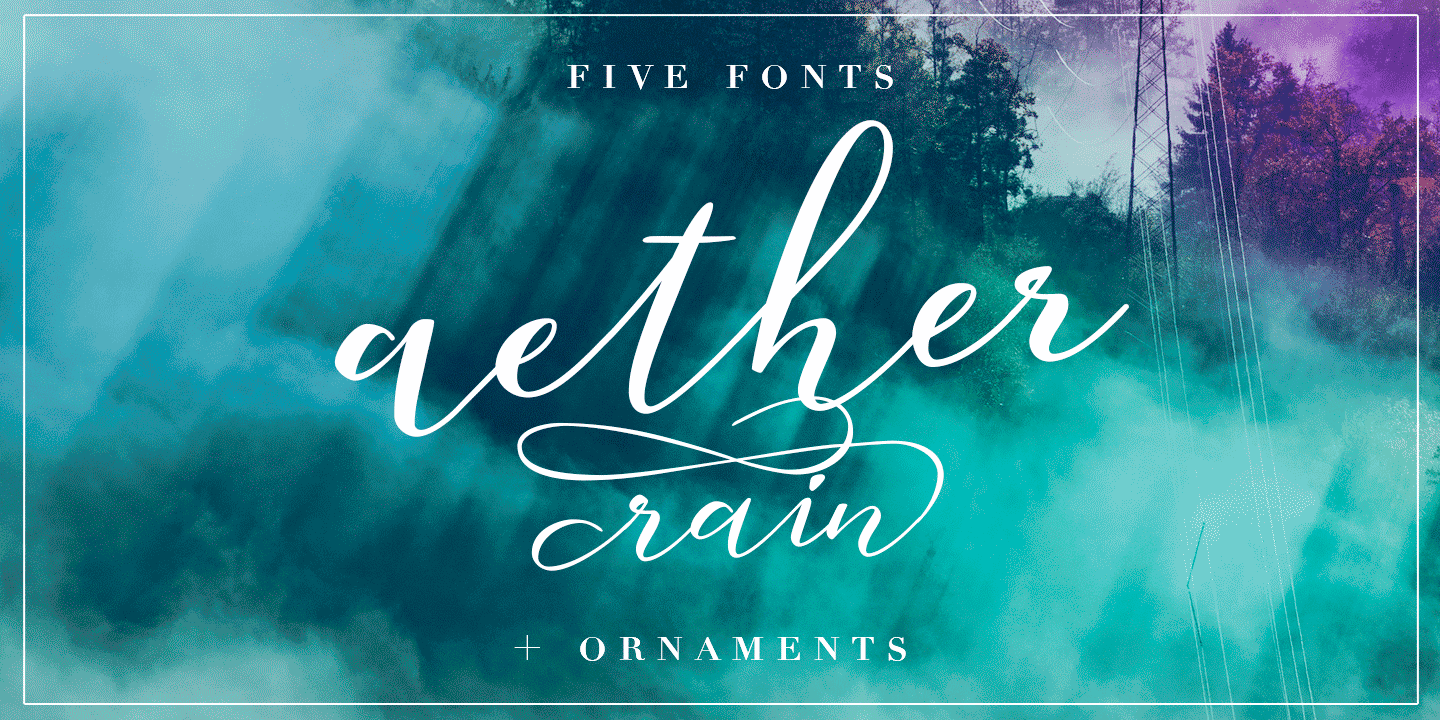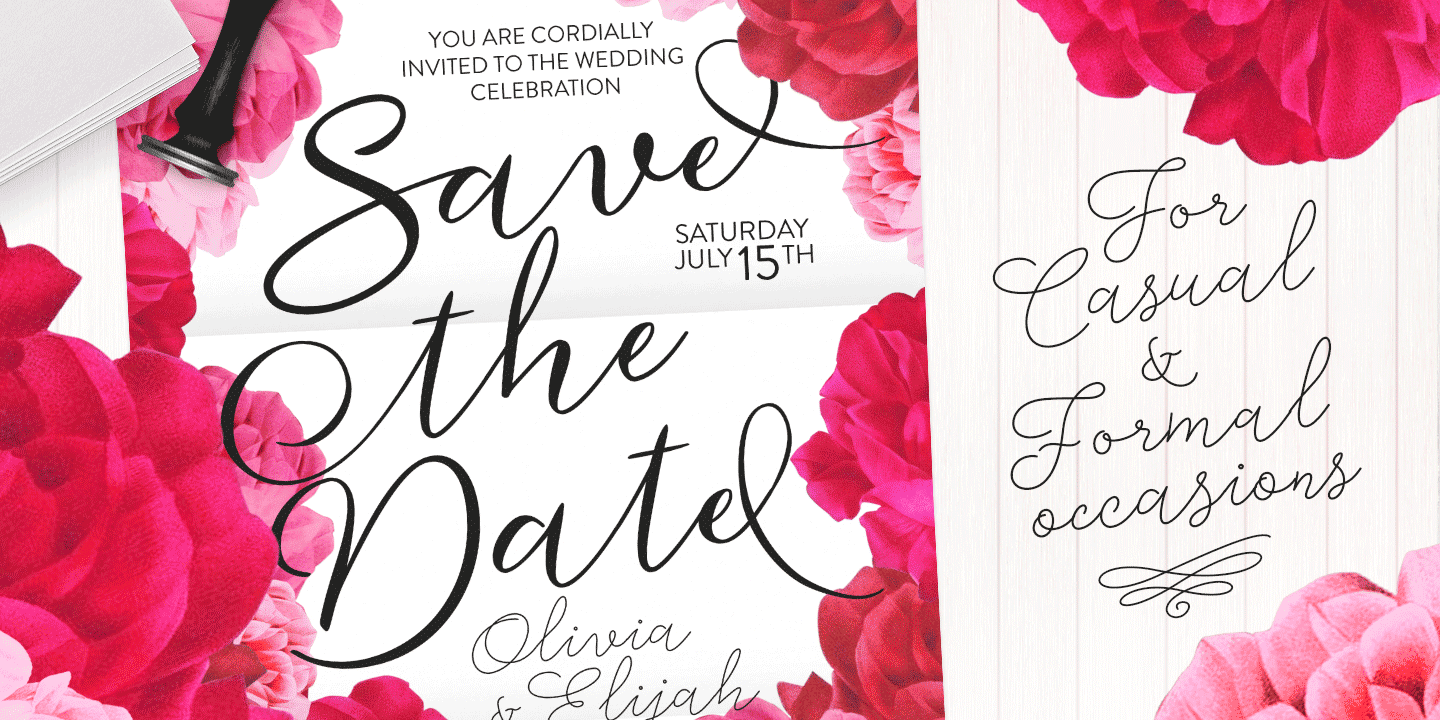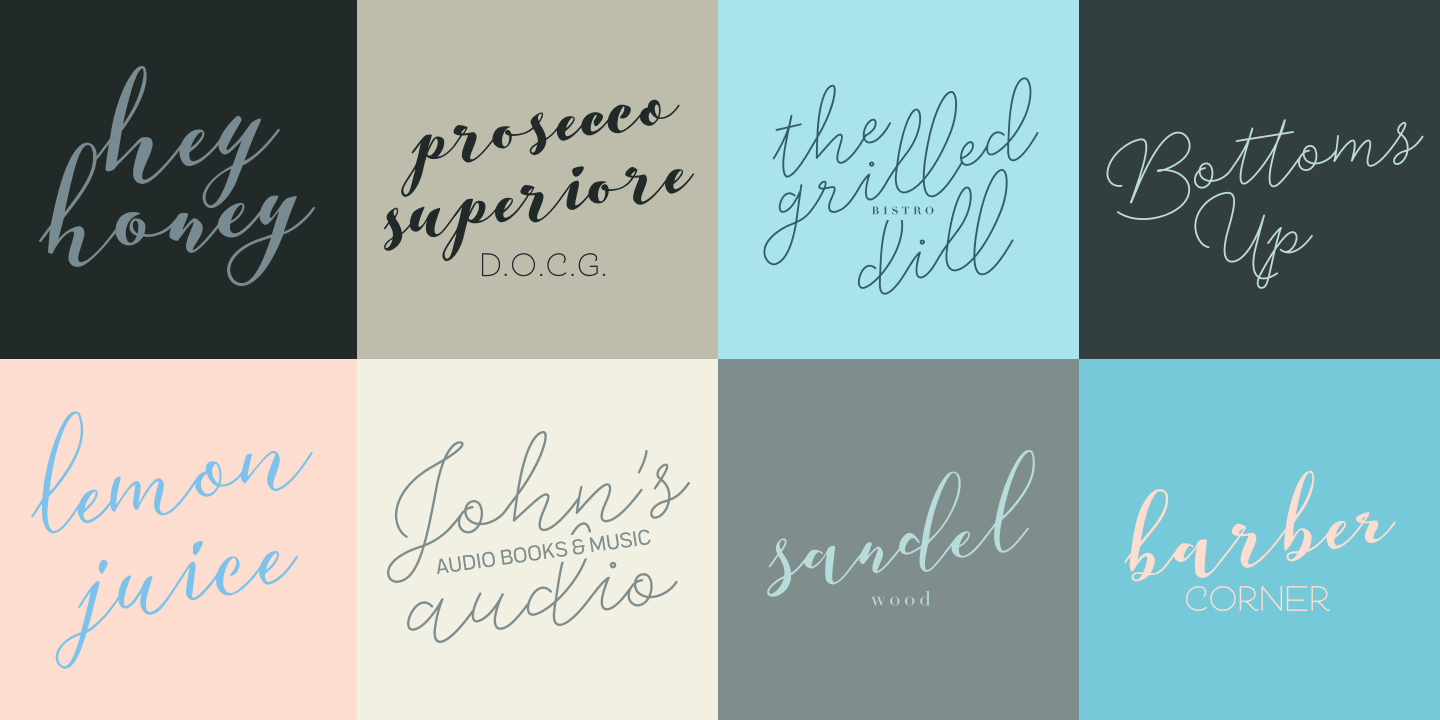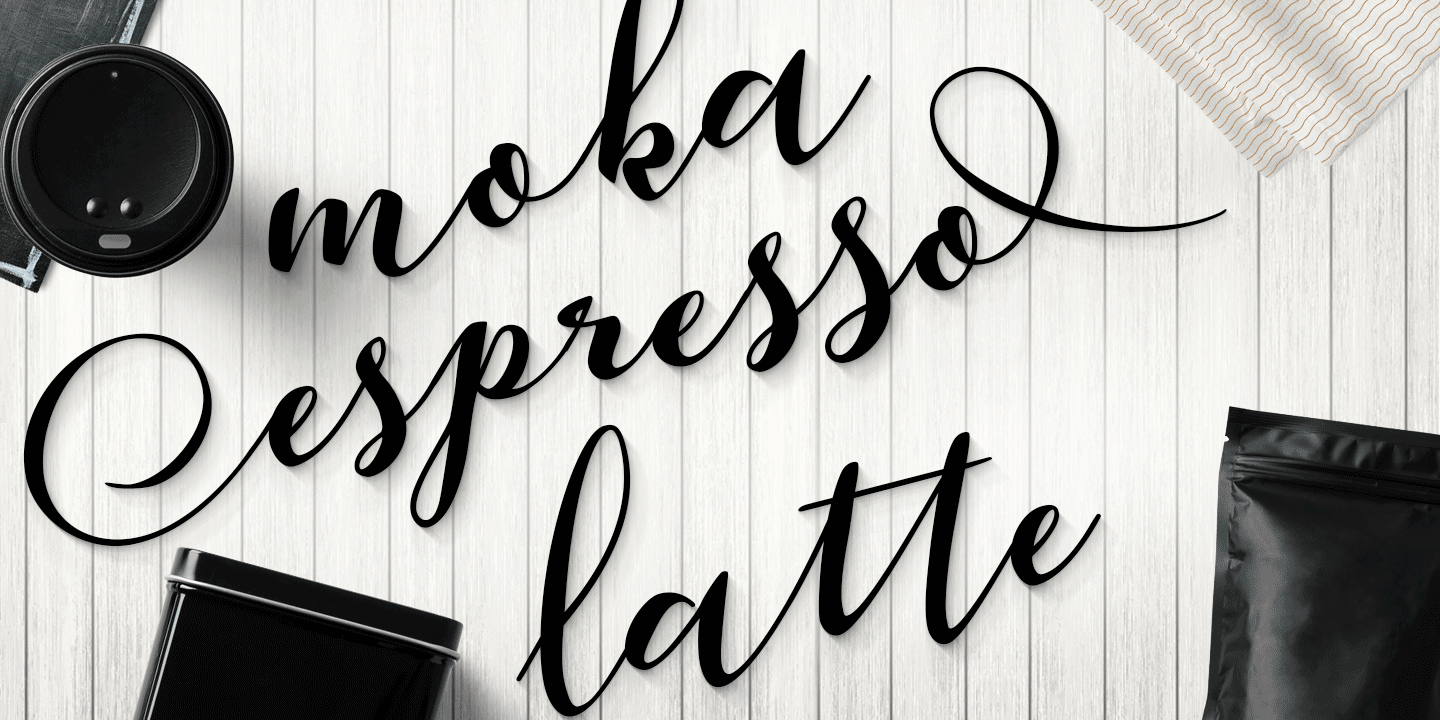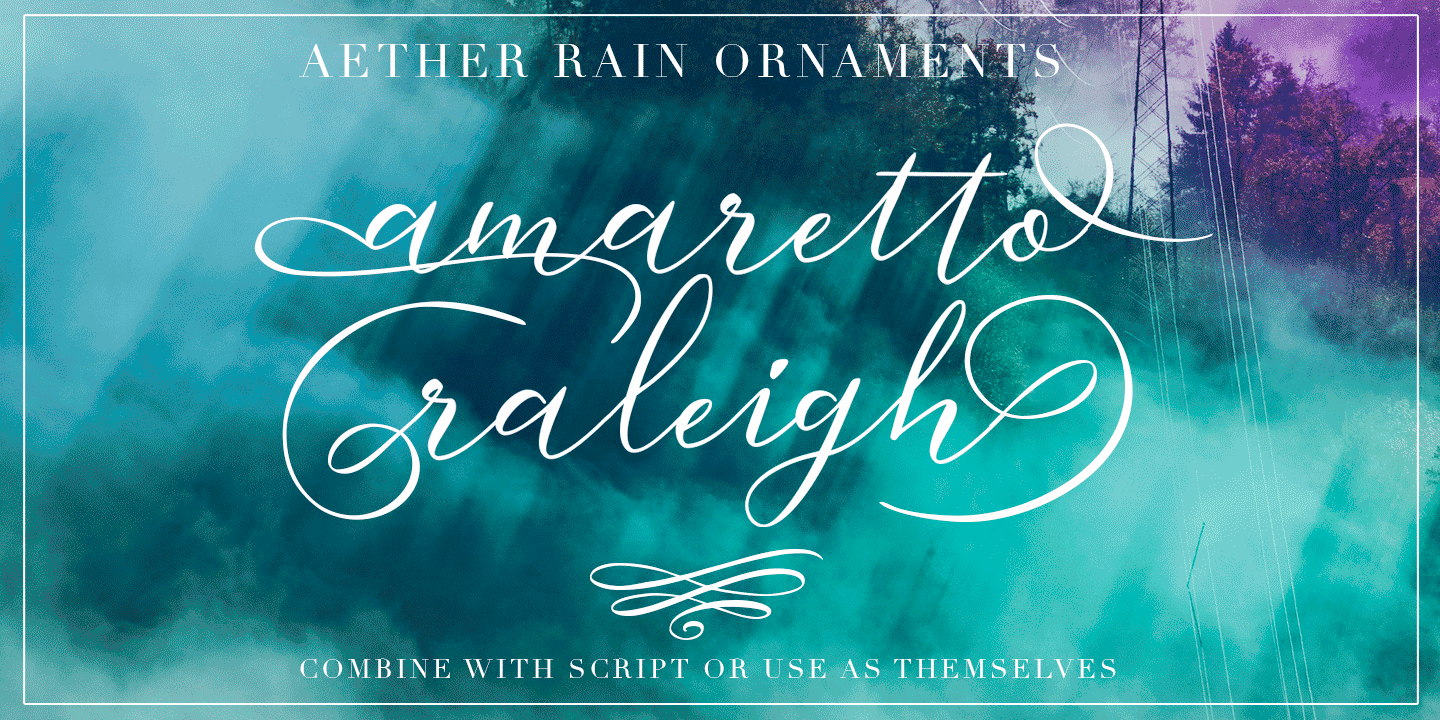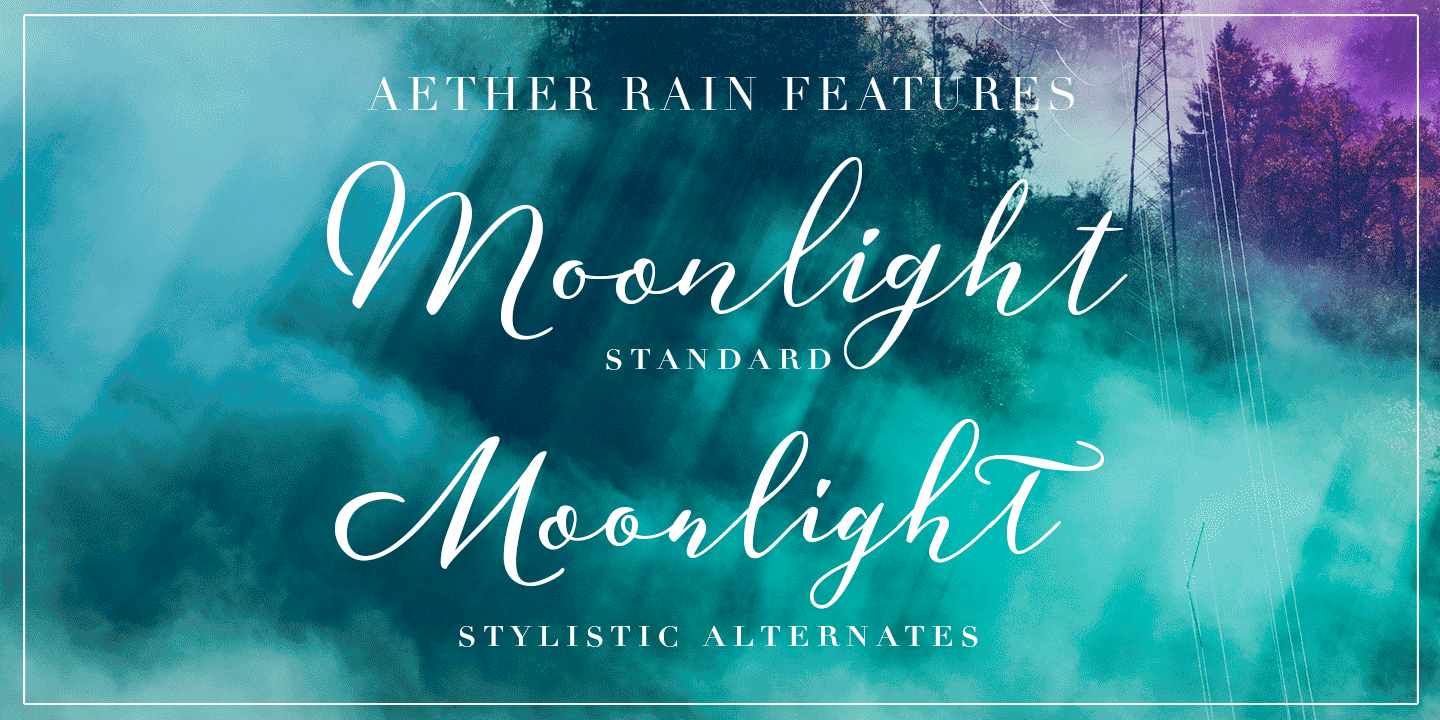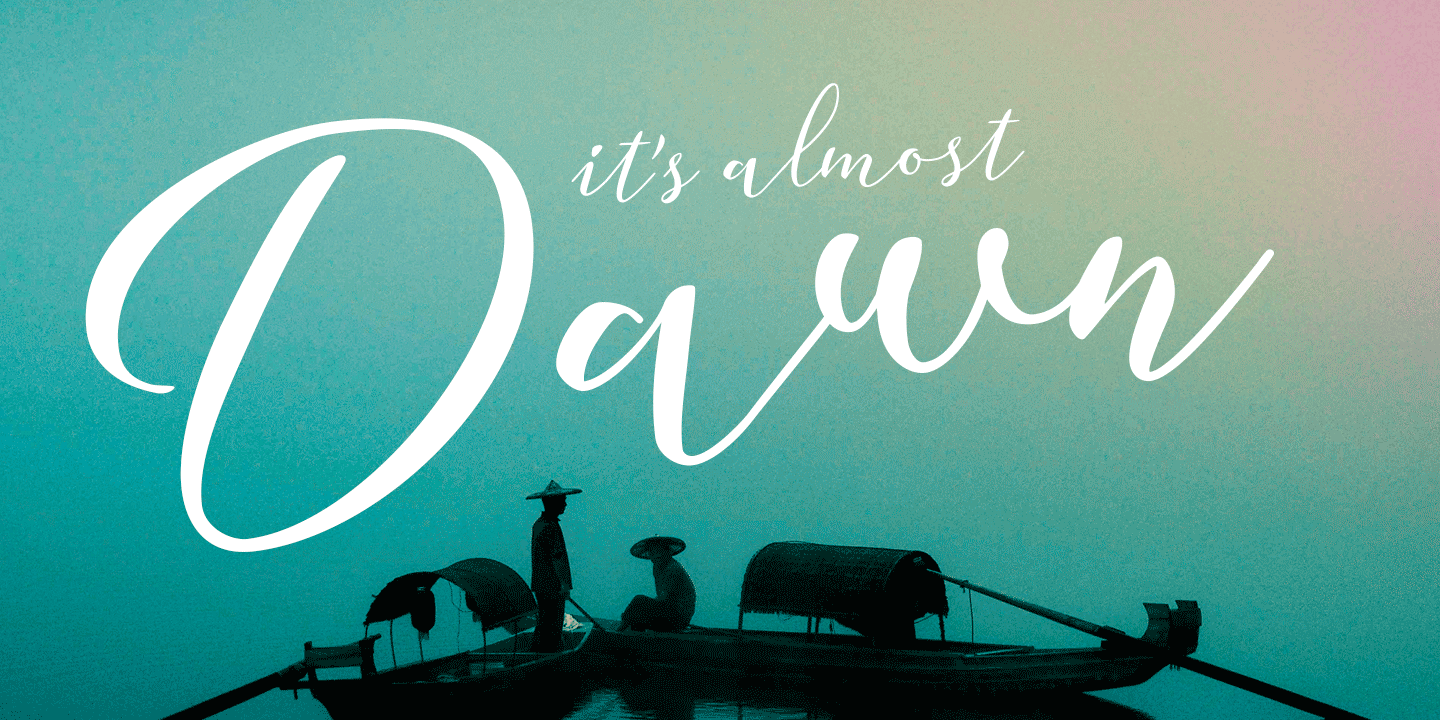
Aether Rain
Font Family by Fenotype
Aether Rain is an elegant modern script family that fits both casual and formal use. Aether Rain includes basic latin alphabets, numerals and punctuation. Aether Rain is equipped with Standard Ligatures that work automatically and it also has Stylistic Alternates (OpenType feature) for each character - and scripts are also PUA encoded.